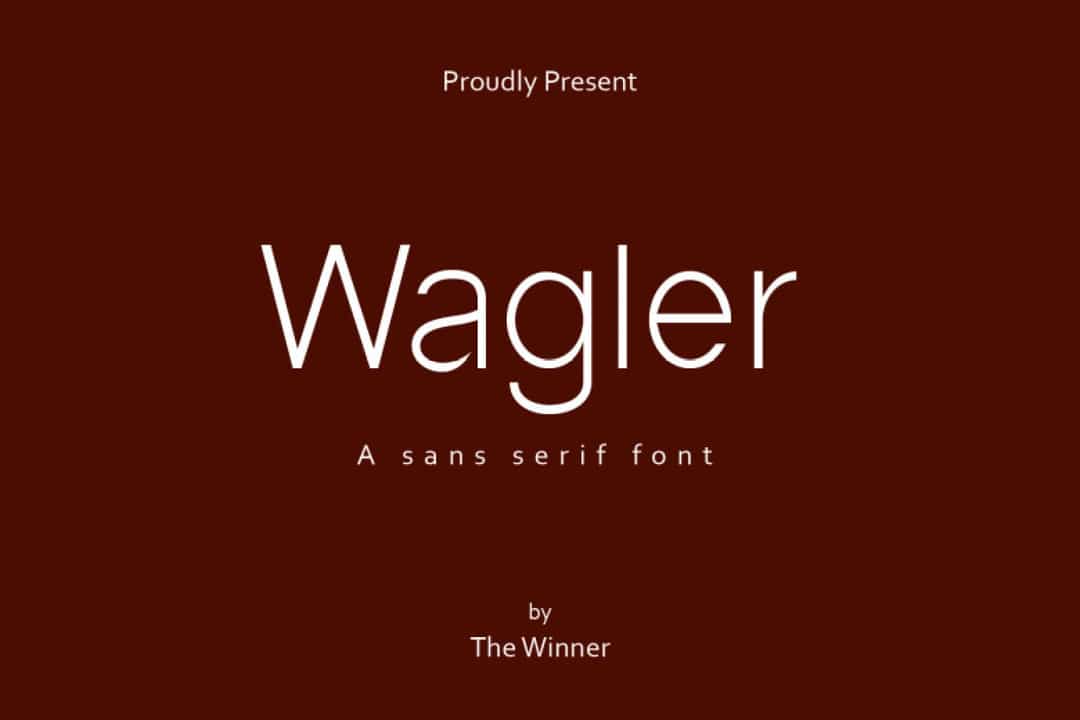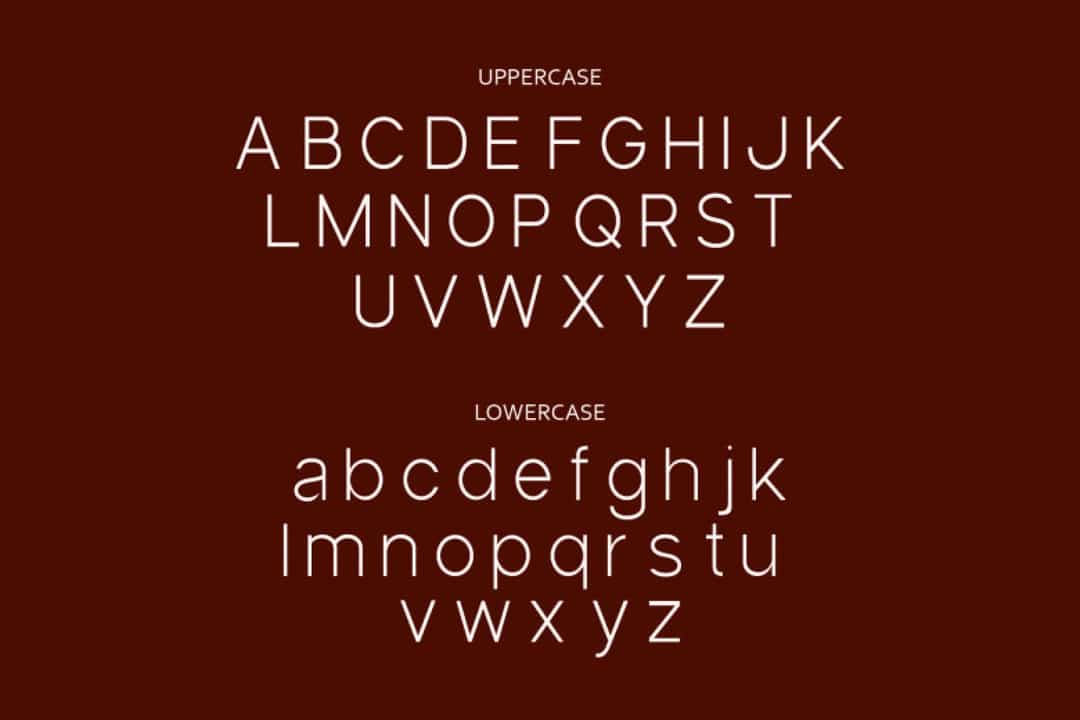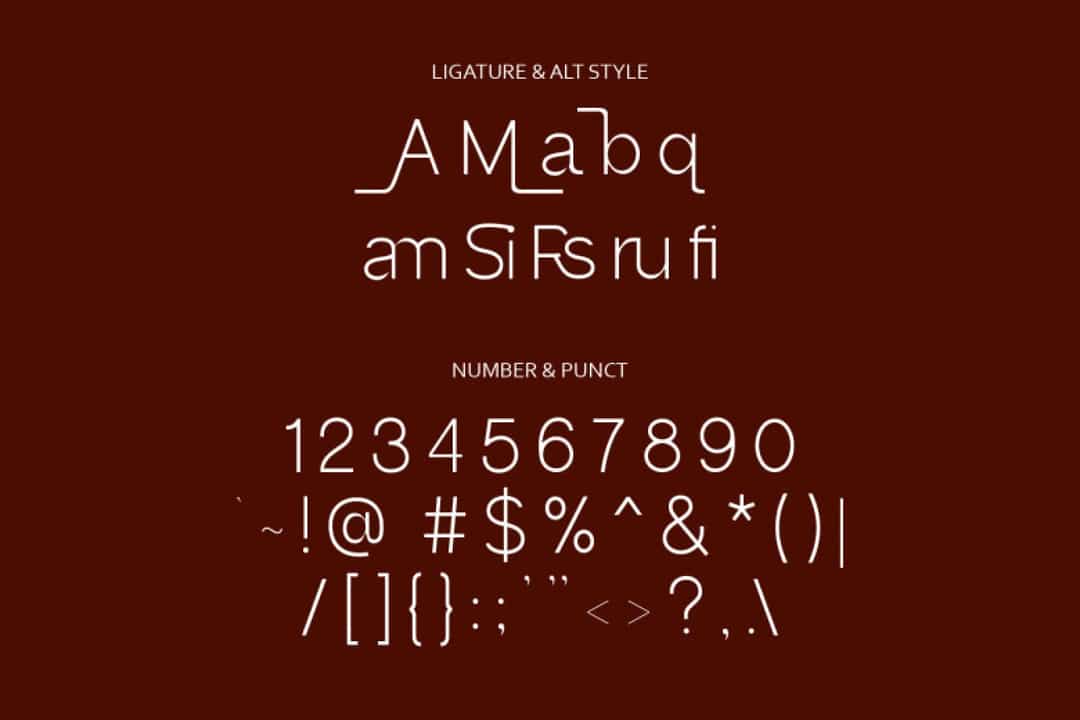
Wagler is an elegant sans serif font designed with minimalism in mind, easily fitting in with many projects and applications. Make the most of it and watch as your projects stand out!